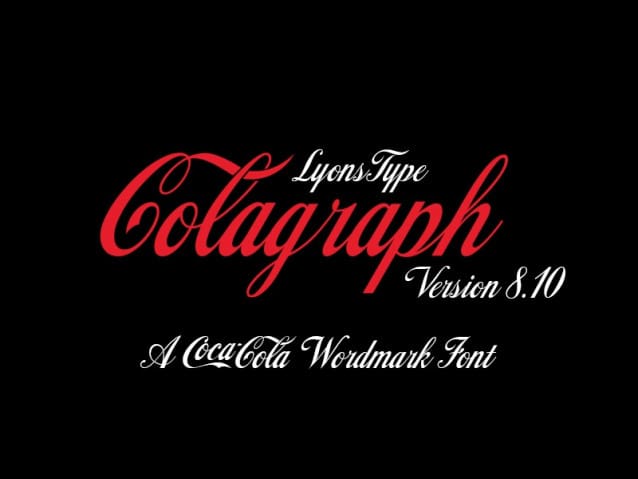
Colagraph Font
Colagraph Font is a typeface that’s not only a revival of the Cola Script font (designed by Bob Alonso of BA Graphics in 1974), but with a variety of additions such as international language support, stylistic alternates (swashes), and Cyrillics.
Update in Version 6.5:
K, O, Q, X, Z updated with supremely close guesses.
Update in Version 7.0:
Real deal letters, numbers and punctuation digitized from a reference image on Instagram.
Update in Version 7.5:
“Y” in Colagraph alternates and in the legacy version updated, along with the “Th” ligature in the legacy version.
Update in Version 7.6:
‘F’, ‘P’, ‘R’, and many other glyphs refined.
Update in Version 7.7:
‘U’, Thorn, and other terminals updated.
Update in Version 7.8:
‘X’, ‘M’ alt, and other glyphs refined from specimen.
Update in Version 8.
Smoother outlines from the official vectors, partially redesign Cyrillics, reorganized OpenType features.
Update in Version 8.01
Additional stylistic sets included.
Fixed the contextual alternates.